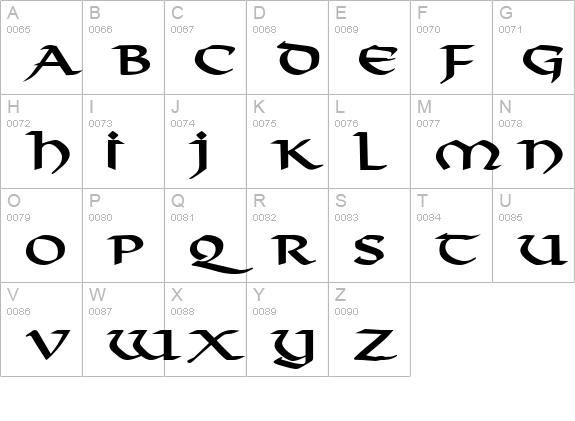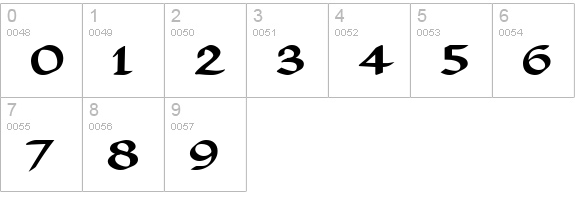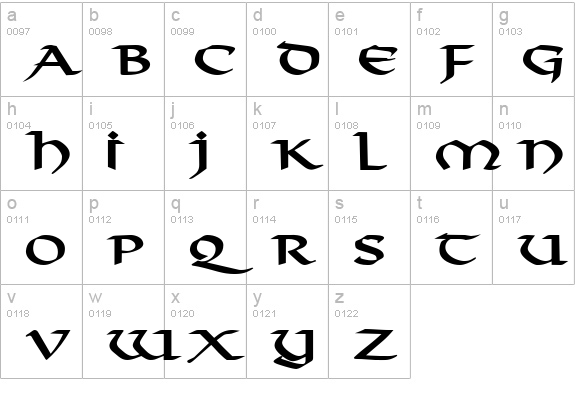
Valhalla Wide Bold is a strong, high-contrast, extended-width variant in the Valhalla typeface family \xE2\x80\x94 well suited to headlines, attention-grabbing titles, and strong calls-to-action.
Valhalla Wide Bold is a striking and powerful font that is sure to make a bold statement in any design project. With its wide and bold letterforms, this font exudes strength and confidence. Designed with attention to detail, Valhalla Wide Bold is perfect for headlines, logos, posters, and other display purposes. Its clean and sharp edges give it a modern and professional look, while its bold weight adds a touch of drama and impact. What sets Valhalla Wide Bold apart is that it is not only visually captivating, but also freely available to download at FontsMarket.com. This means that you can effortlessly add this stunning font to your collection without any cost or hassle. Whether you're a designer looking to enhance your typography repertoire or a business owner seeking a standout look for your brand, Valhalla Wide Bold is an excellent choice. Its versatility allows it to be used in various design styles, making it a go-to font for both digital and print media. So, why wait? Experience the power and beauty of Valhalla Wide Bold today by downloading it for free at FontsMarket.com. Elevate your designs with this remarkable font and make a lasting impression.